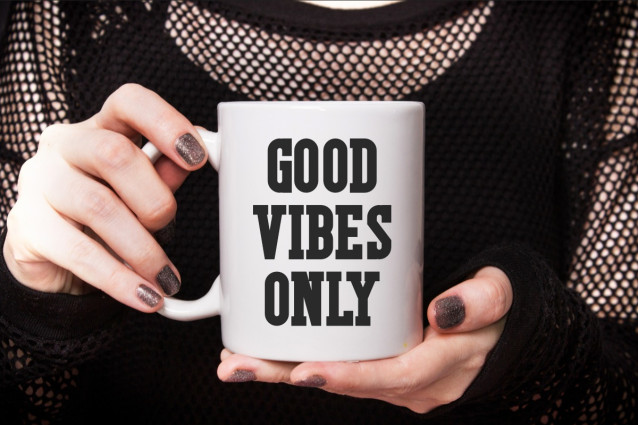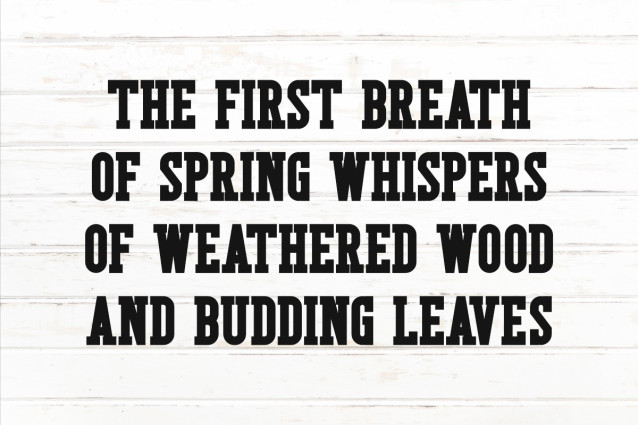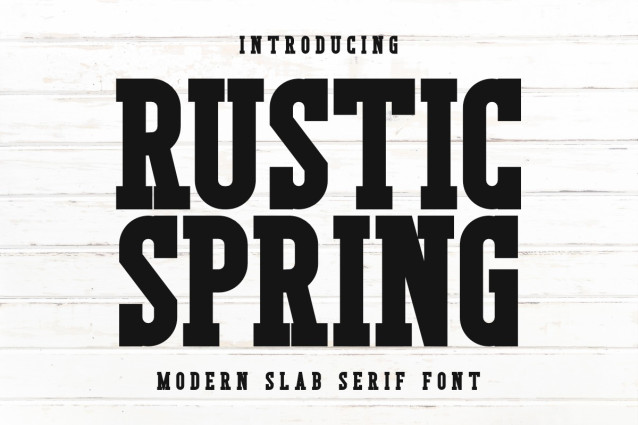
Rustic Spring Font
Rustic Spring Font is a modern slab serif font that blends a rustic charm with a contemporary feel. Its bold, slightly distressed letterforms evoke a sense of handcrafted quality and vintage appeal, while maintaining a clean and legible structure. This typeface is perfect for designs seeking a warm, earthy, and approachable aesthetic with a touch of modern simplicity.